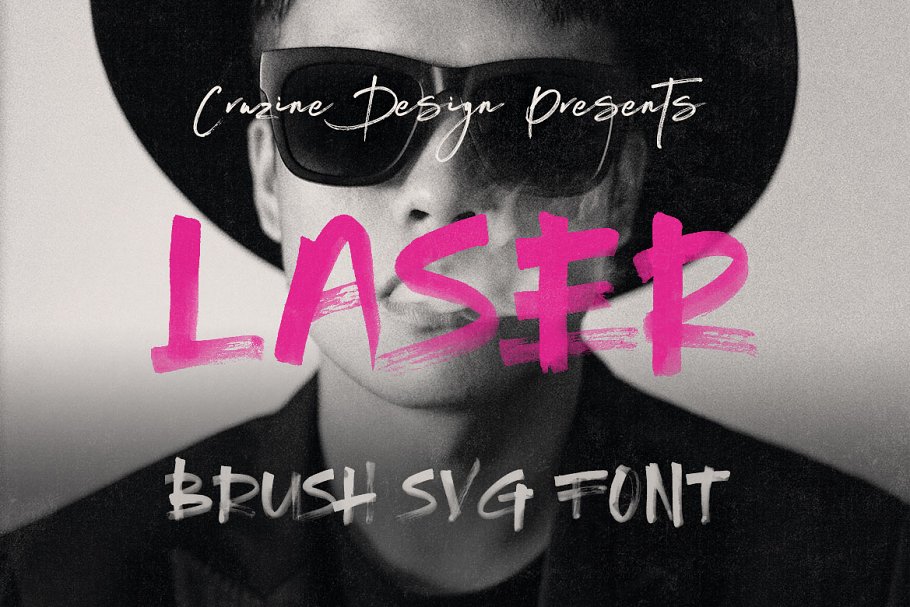
Introducing Laser Brush & SVG Font, the ultimate font collection that will bring your projects to life! Created by Cruzine Design, this sans serif font is perfect for anyone looking to add a touch of grunge or artistry to their work. And the best part? It's currently on an intro SALE for only $9, so don't miss out on this limited time offer!
Whether you're a designer or an artist, Laser Brush & SVG Font is the perfect tool to elevate your creations. With its brush or grunge style, this font adds a unique and edgy touch to any project. From posters to logos, this font will make your designs stand out from the crowd.
But that's not all - Laser Brush & SVG Font is not your average font. It's a color or SVG opentype font, which means it works seamlessly in Photoshop CC 2017+, Illustrator CC 2018, and some Mac apps. Say goodbye to boring black and white fonts and hello to vibrant and eye-catching typography!